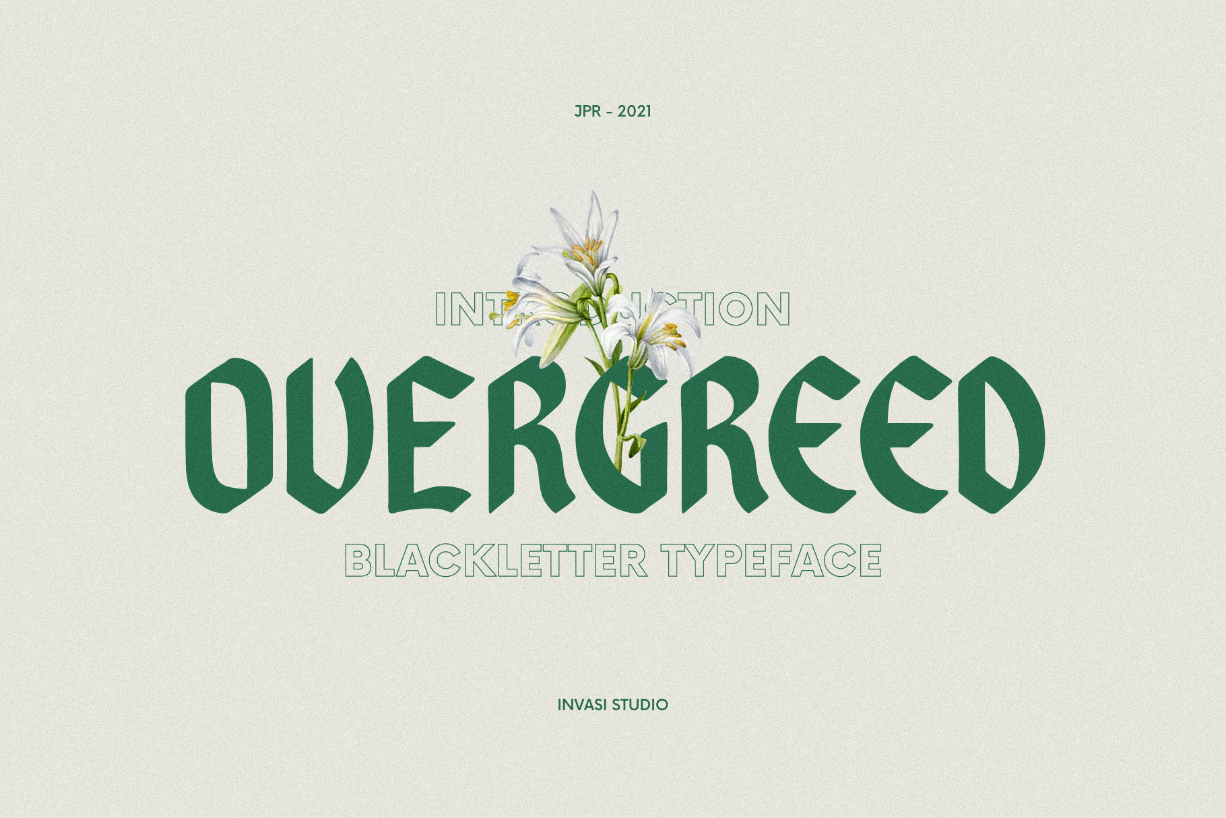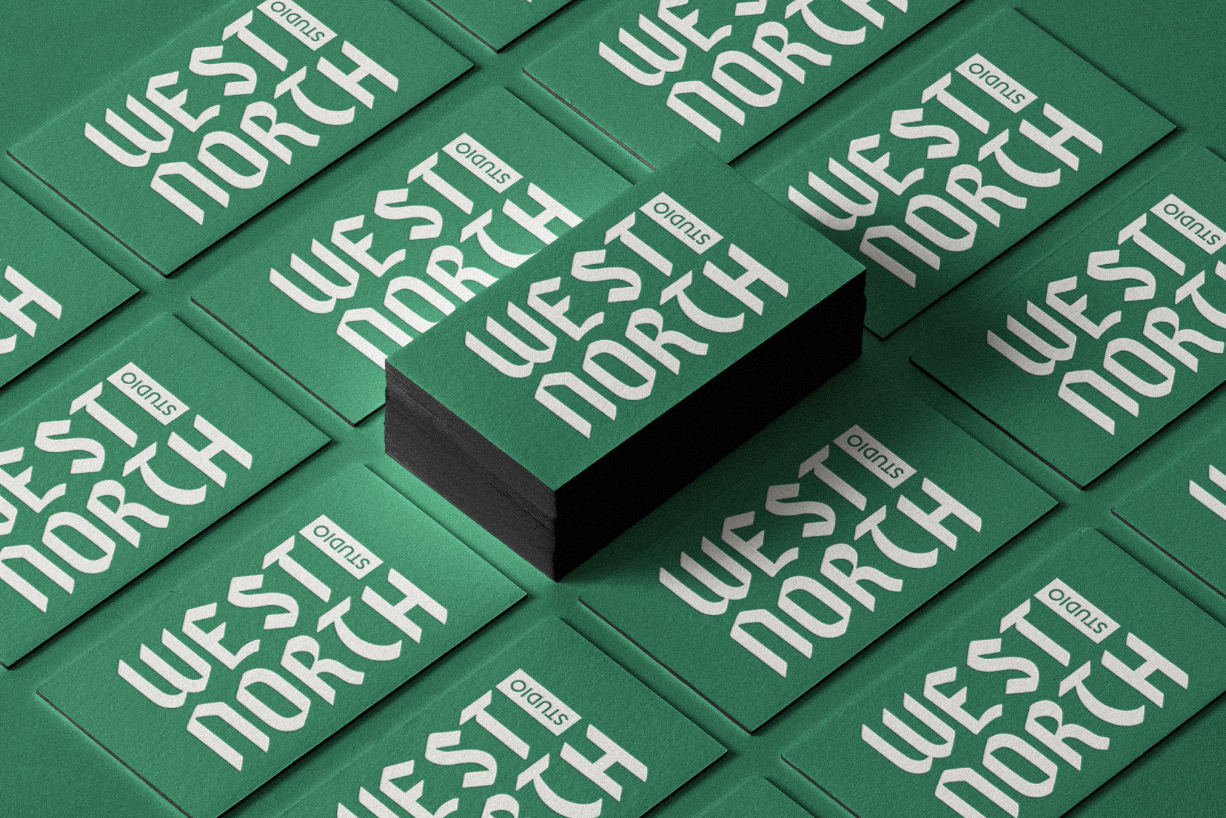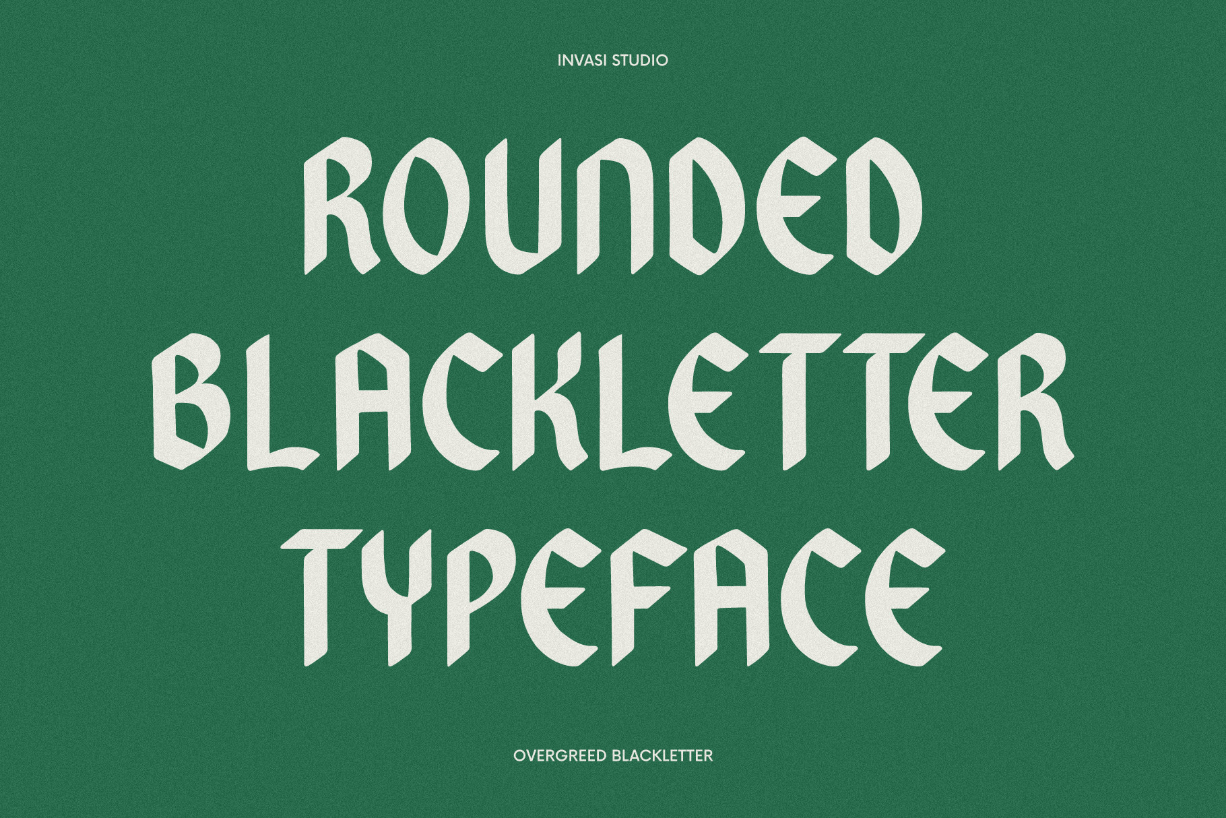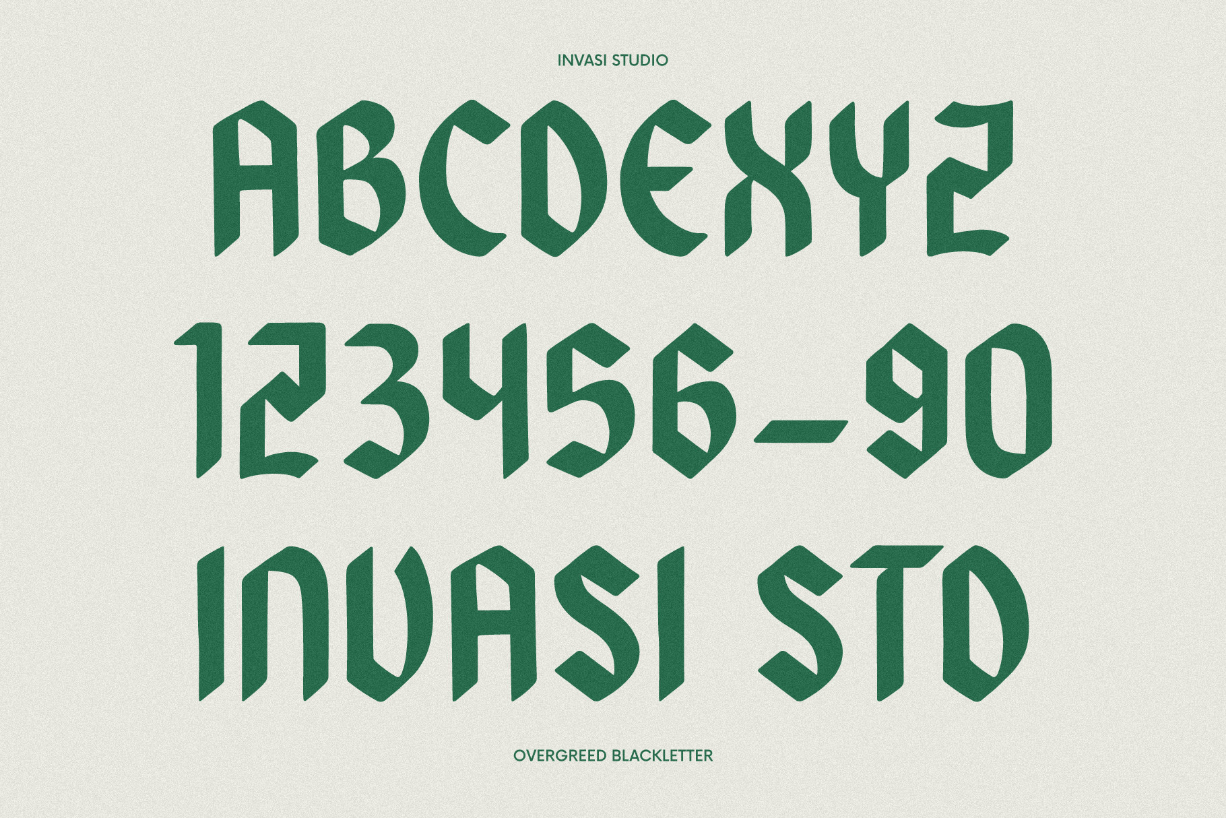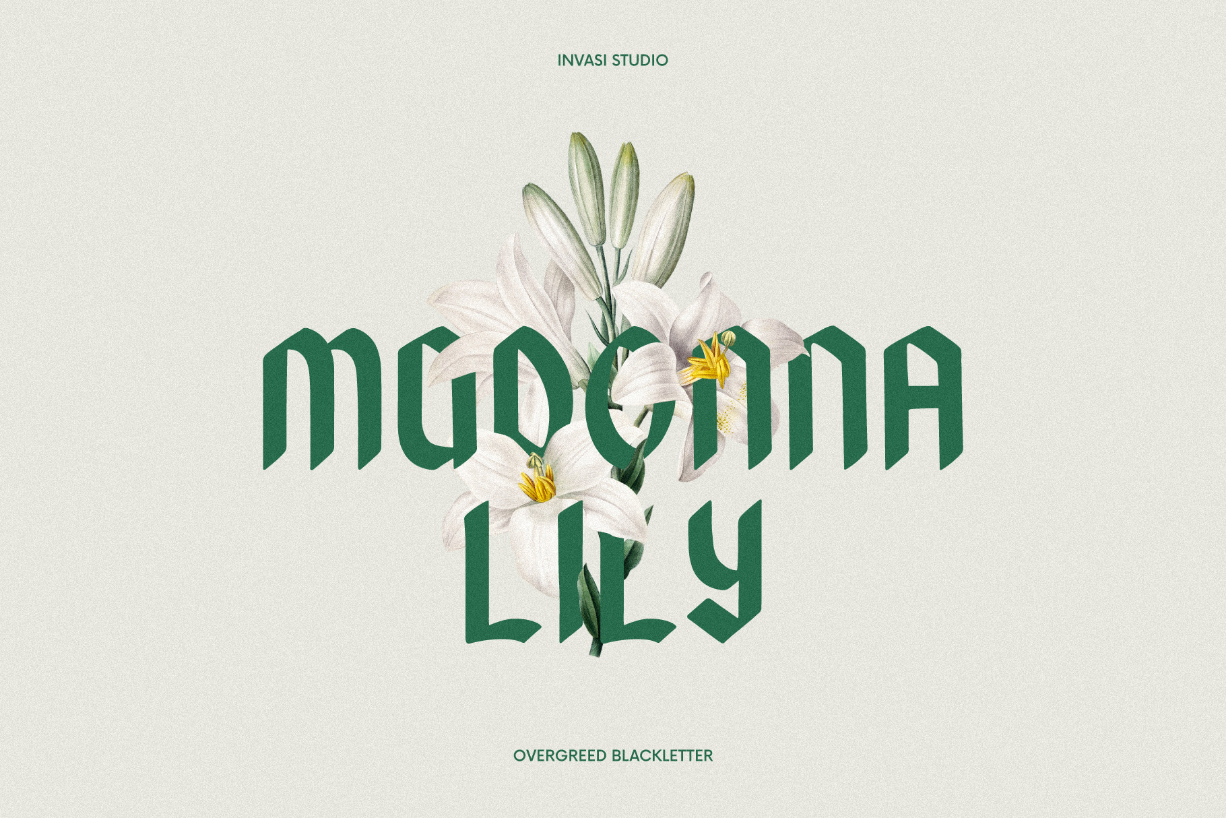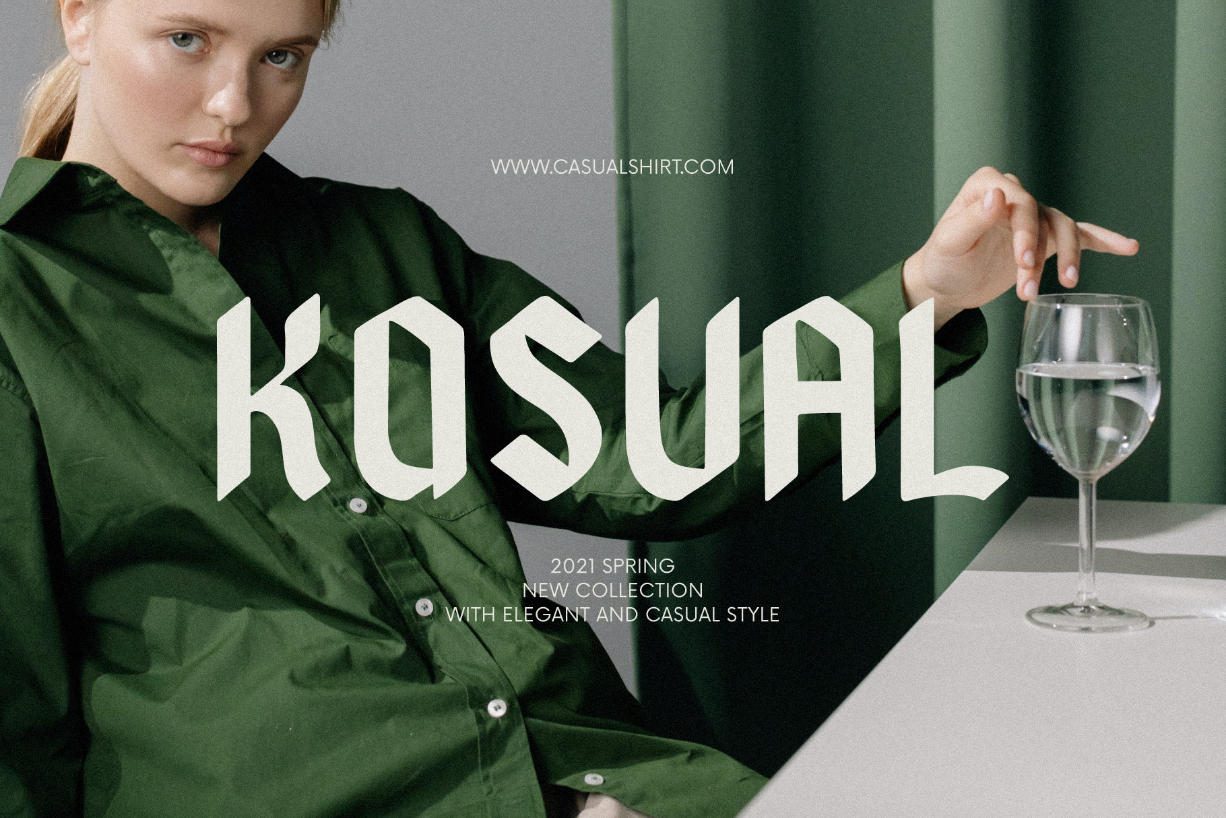
Overgreed Font
About Overgreed Font
Overgreed is a distinct and interestingly designed blackletter font. It will elevate a wide range of crafting ideas, from cards, to branding, labels and much more.